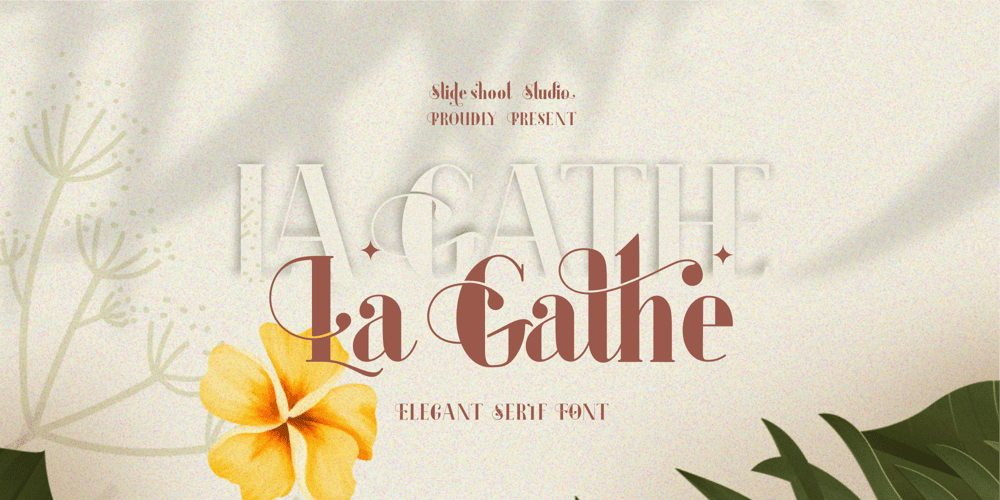
La Gathe Font Family was designed by Ahmad Riqi and published by Slide Shoot. La Gathe contains 1 styles and family package options. La Gathe is an elegant serif font. Different letters make this font has its charm. Fall in love with its incredibly versatile style and use it to create spectacular designs.It is suitable for various products such as invitations, product packaging, quotes, product design, crafter, labels, photography,watermarks, logos & branding.FEATURES Ligatures Uppercase and Lowercase letters Numbering and Punctuations Multilingual Support Works on PC or Mac Simple Installation Support Adobe Illustrator, Adobe Photoshop, Adobe InDesign, also works on Microsoft Word Hope you Like it.Thanks.